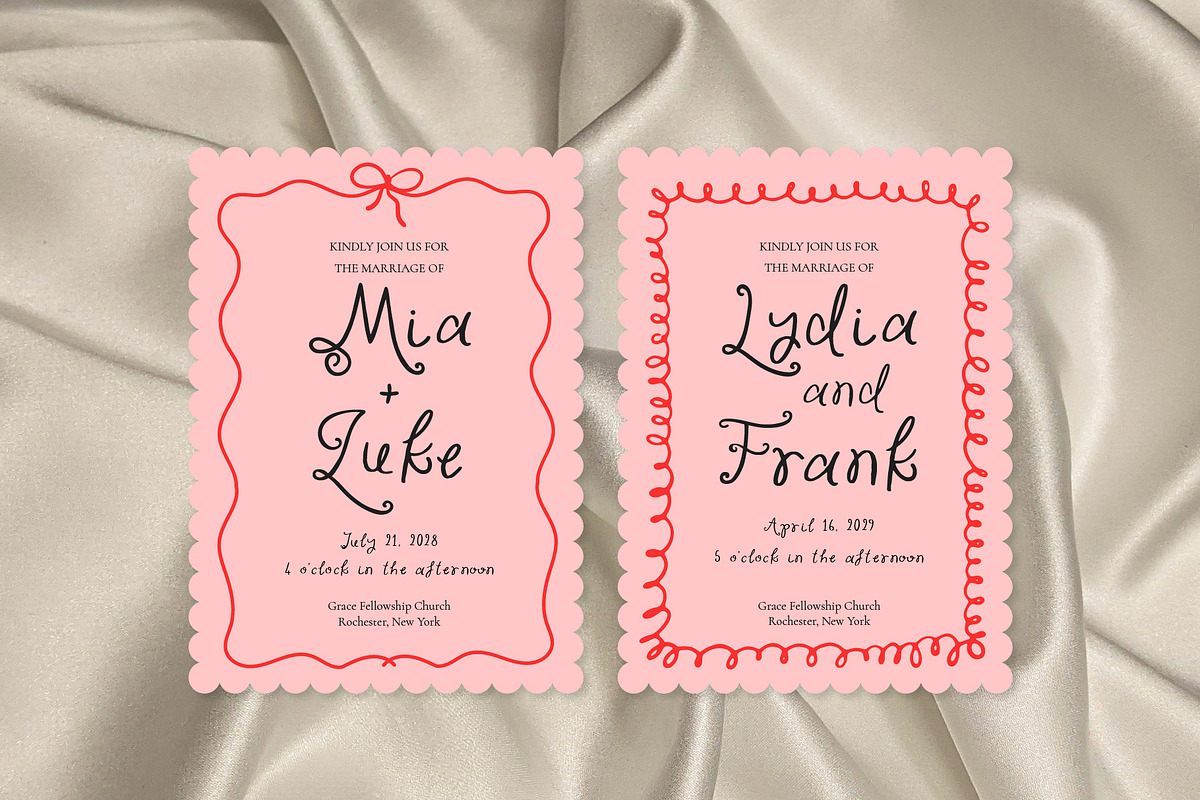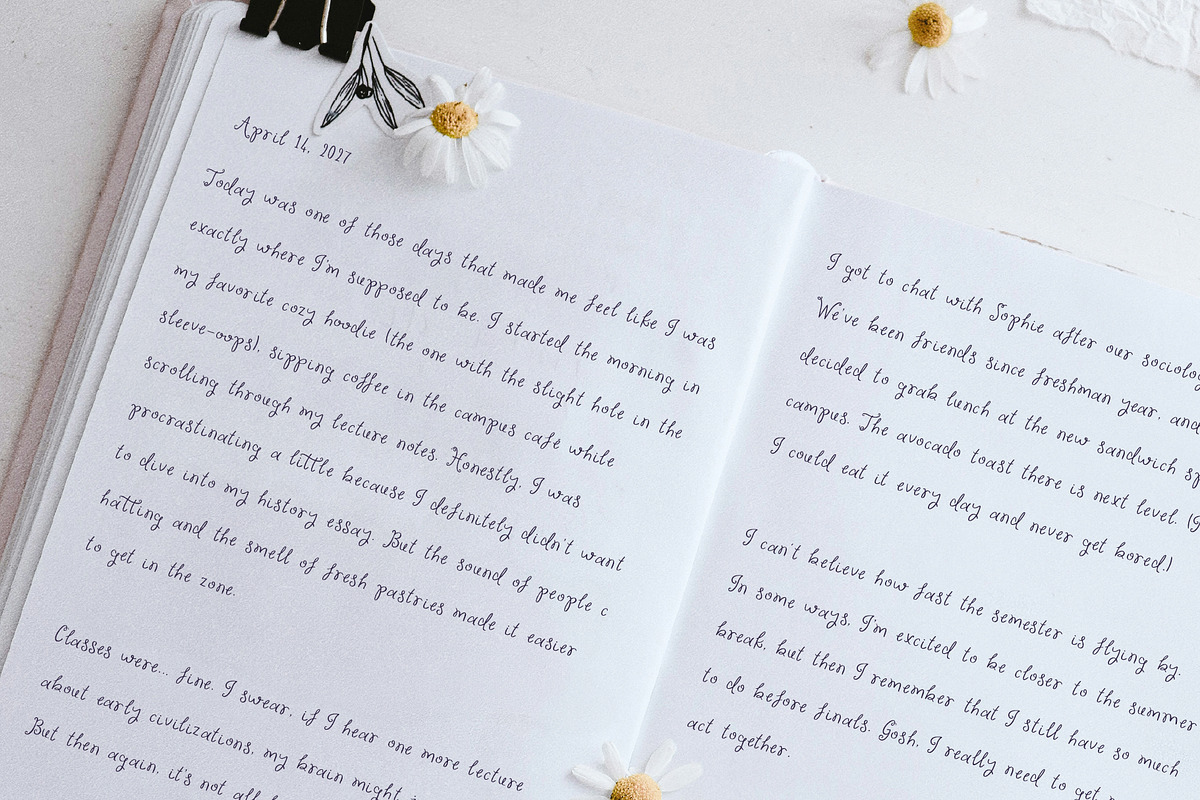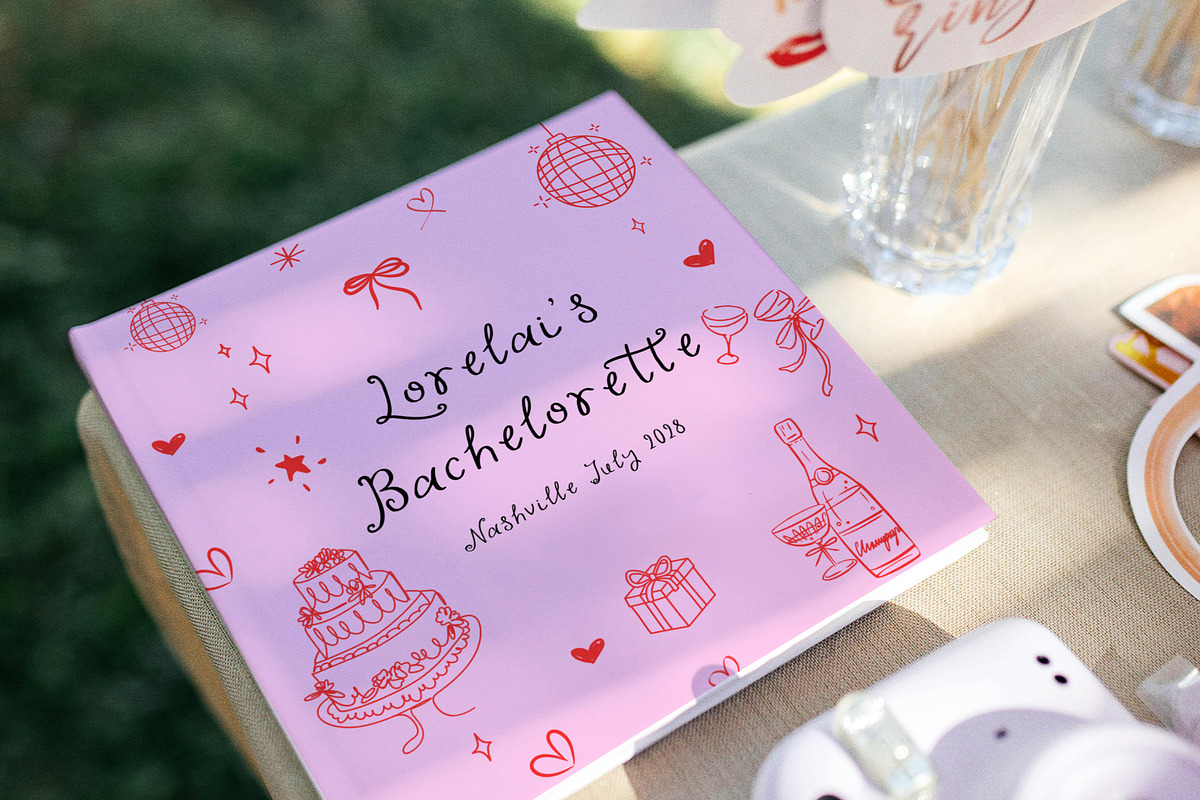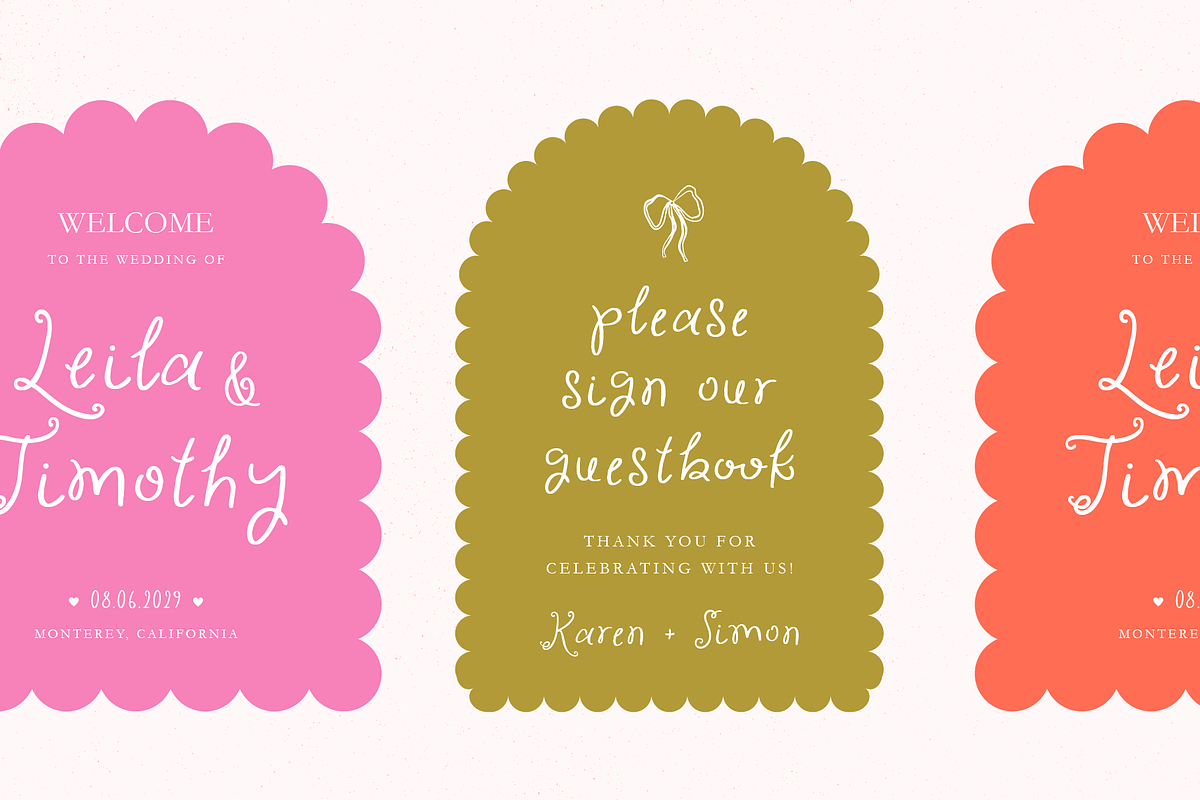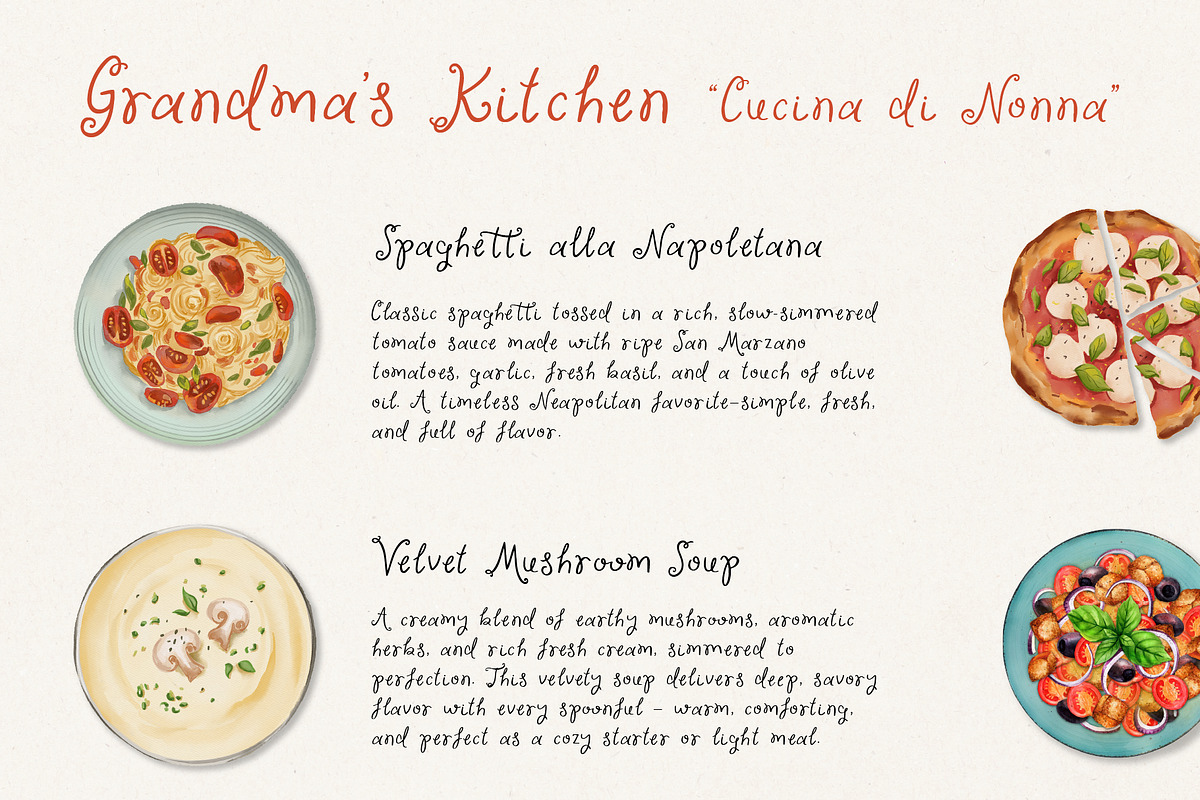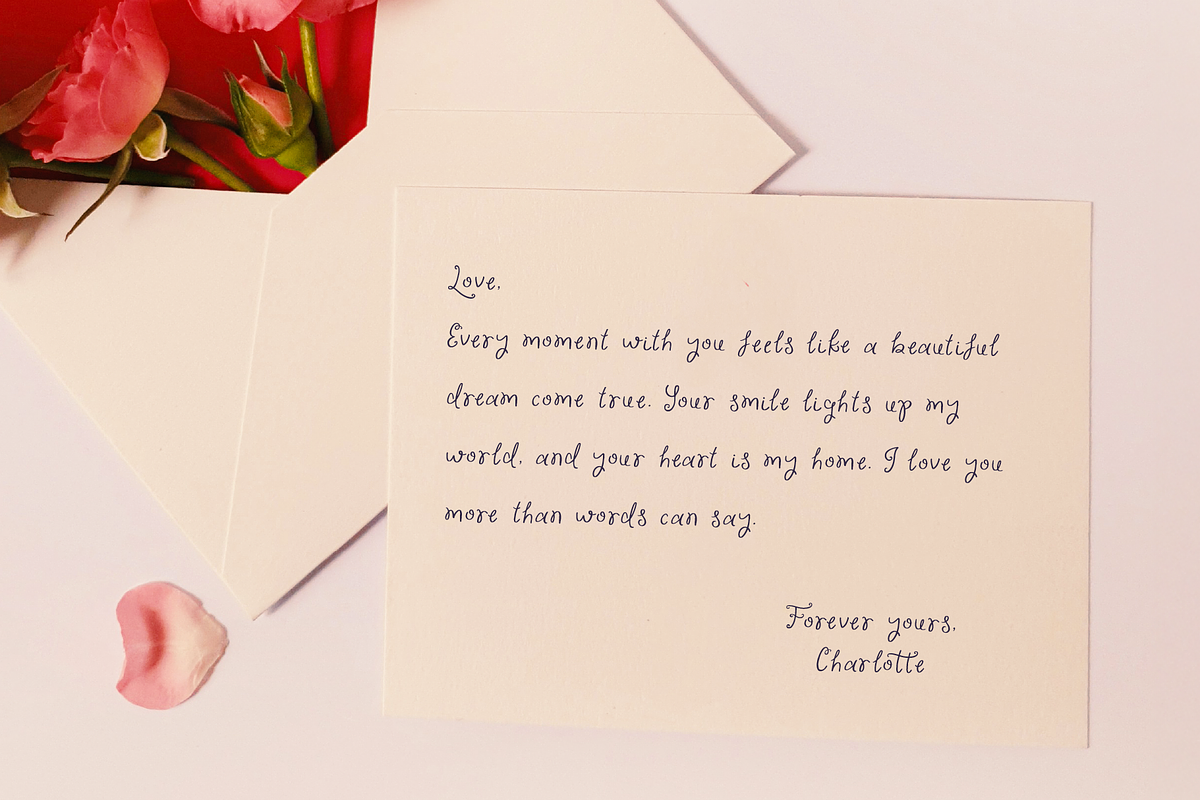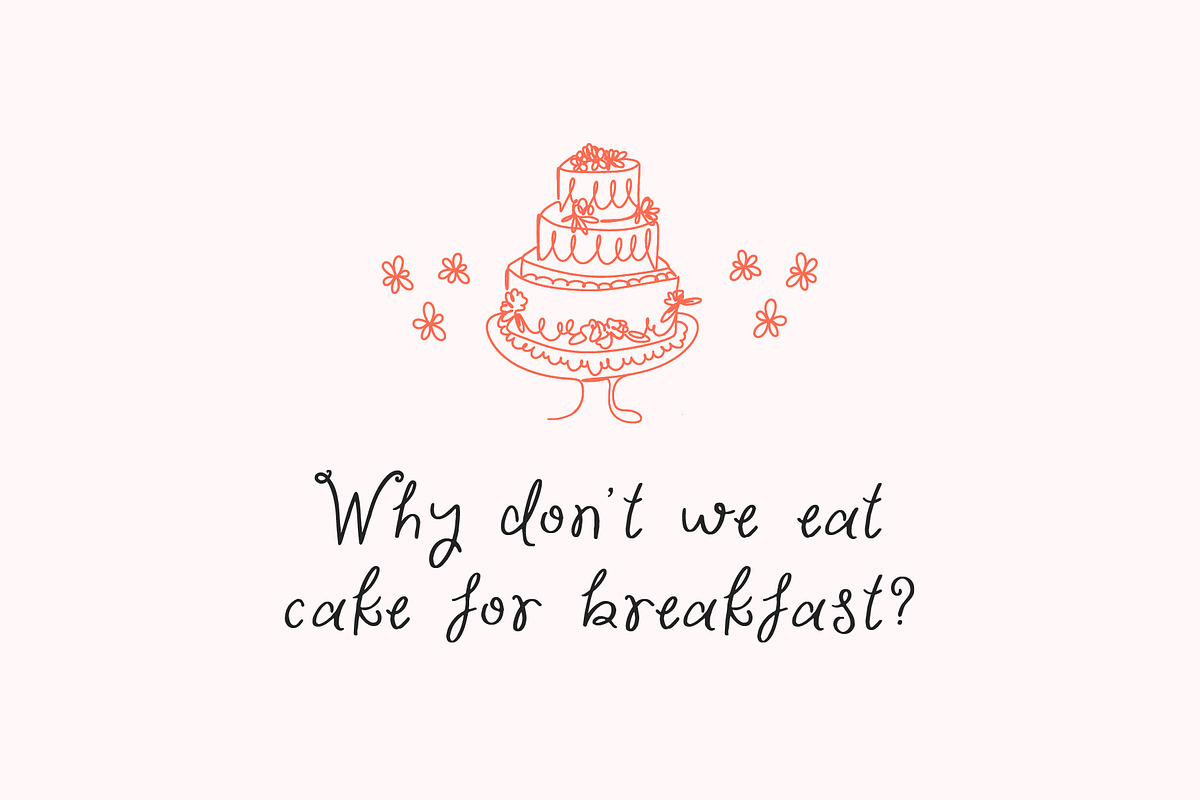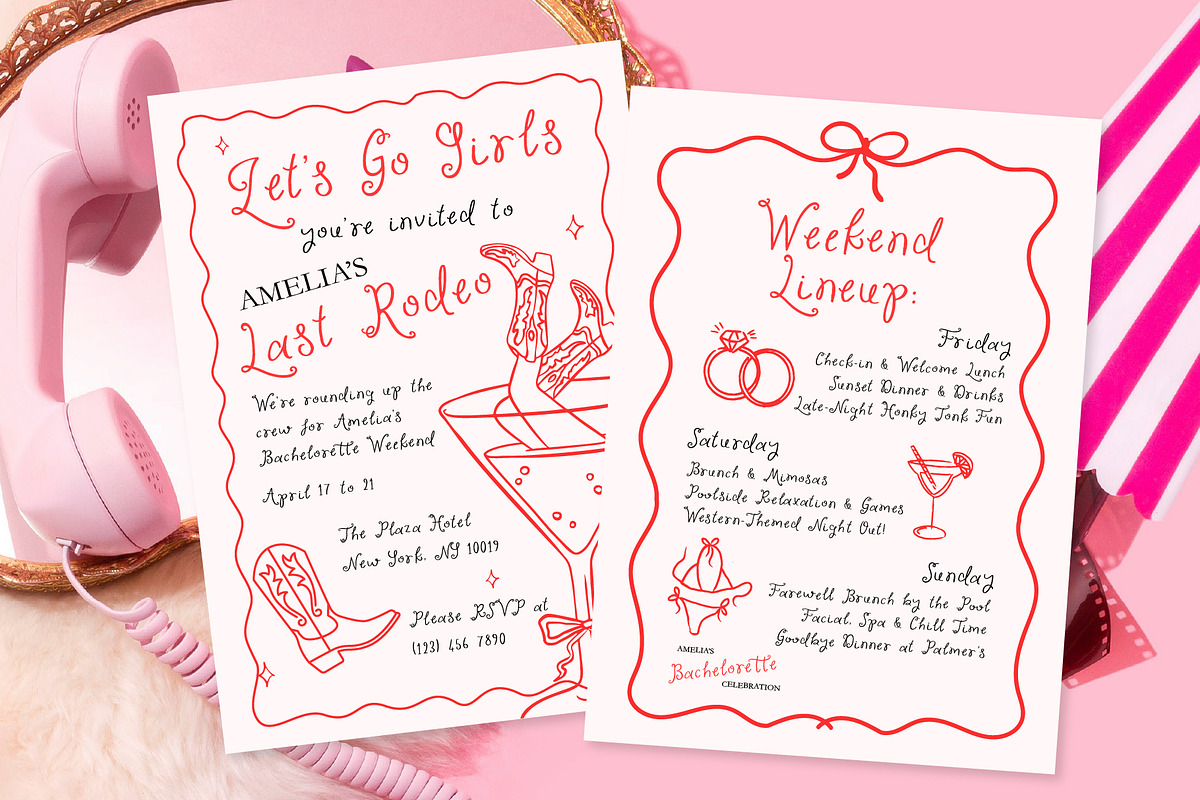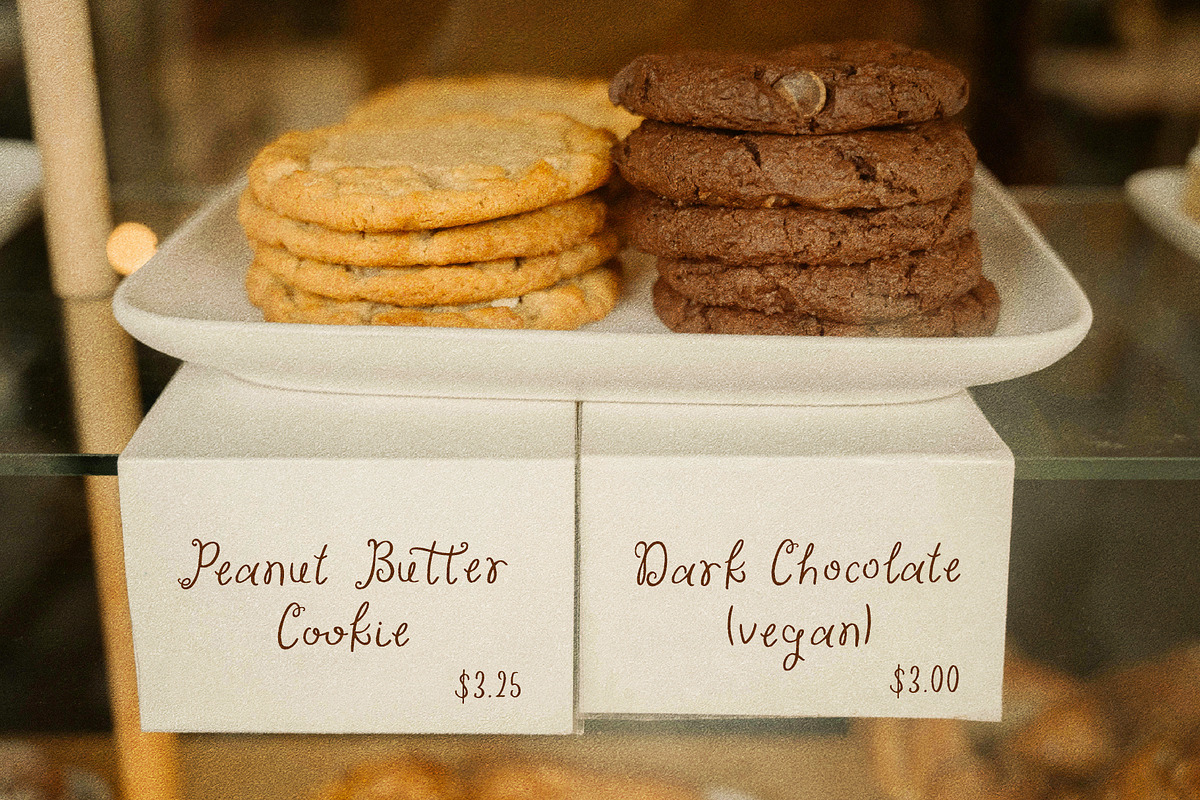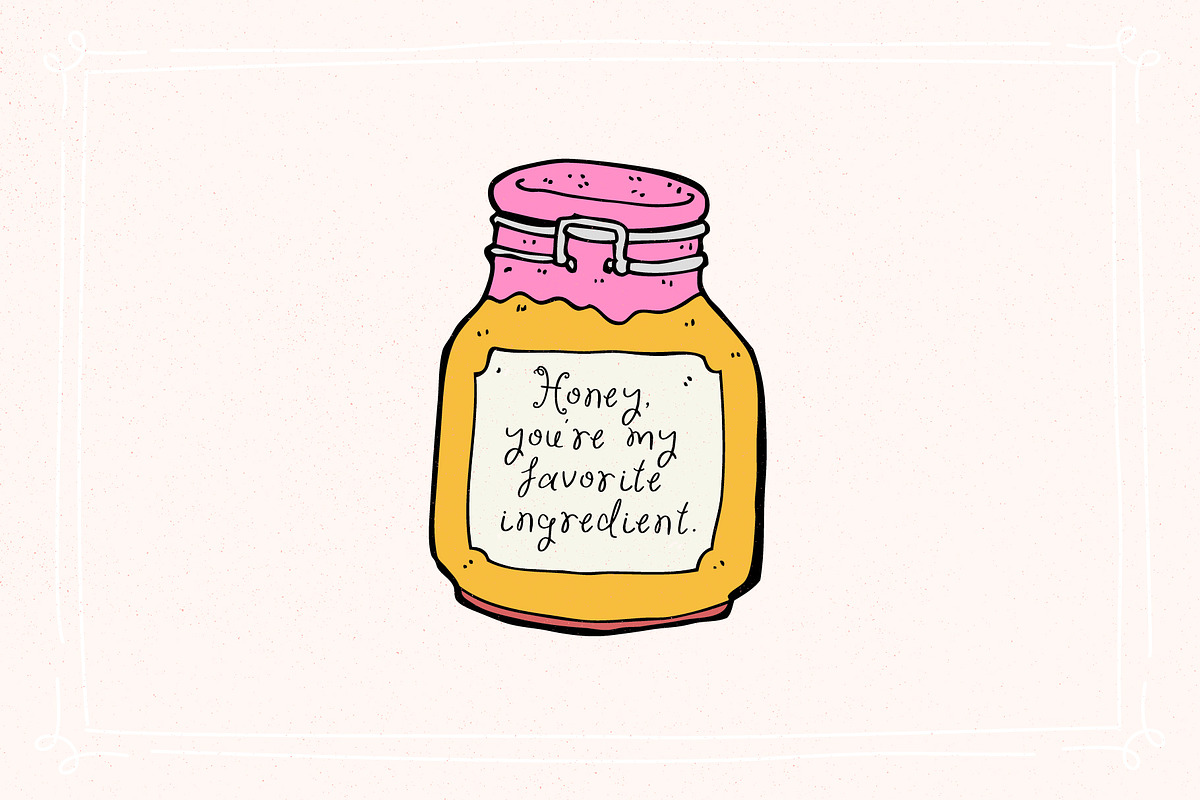
The Strawberry Collective Sweet Font
The Strawberry Collective is a whimsical script font with naturally textured edges that bring a handwritten feel to life. Its graceful strokes and playful personality make it perfect for adding a romantic, creative flair to invitations, logos, social media graphics, and more. With every letter, it tells a story full of warmth and imagination.